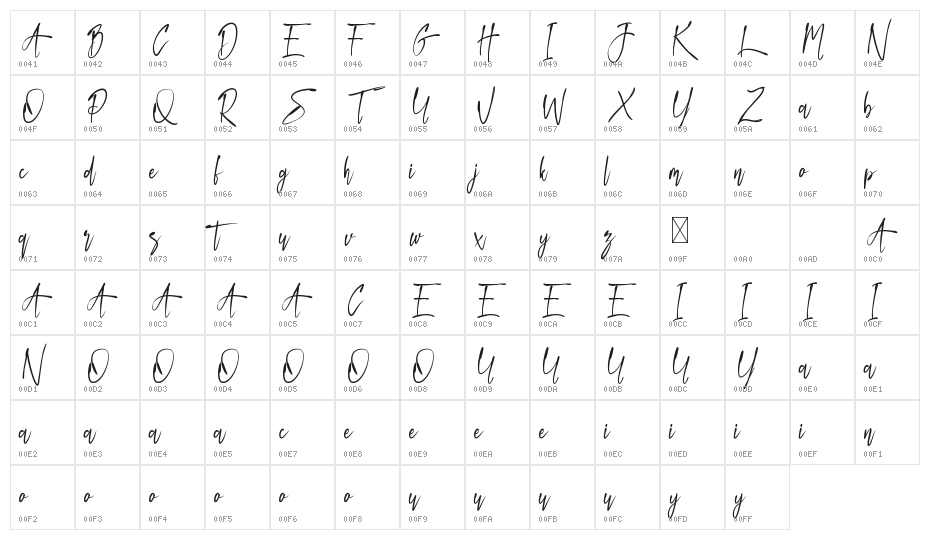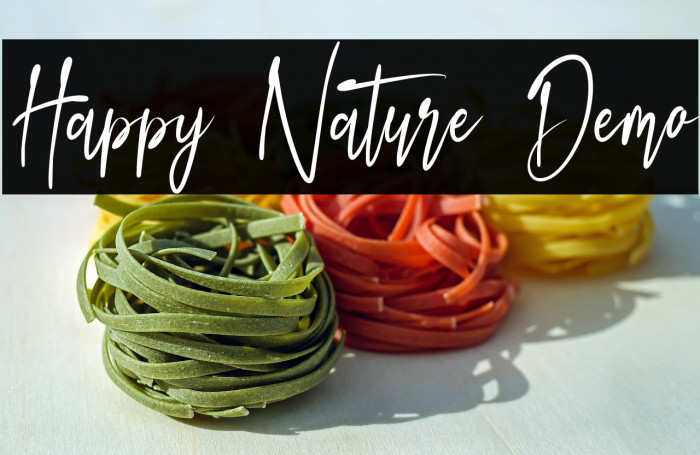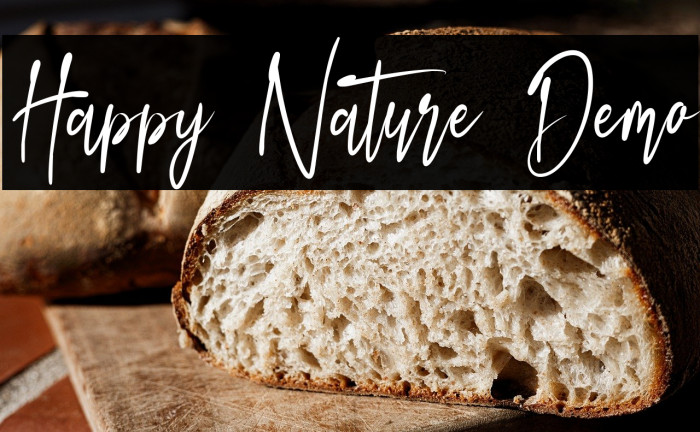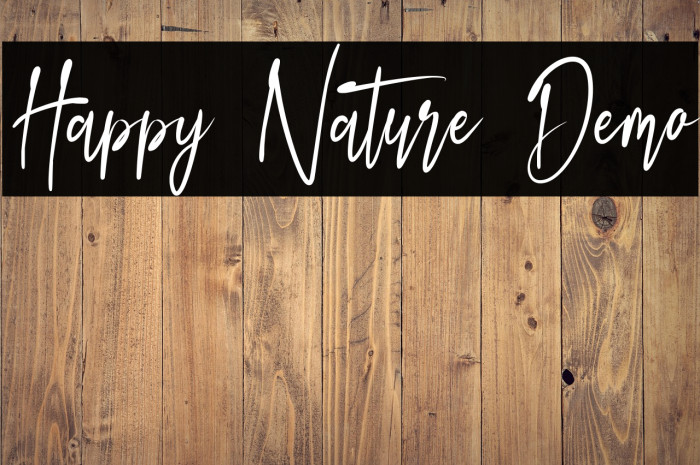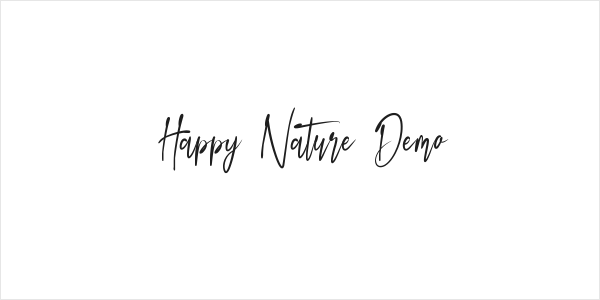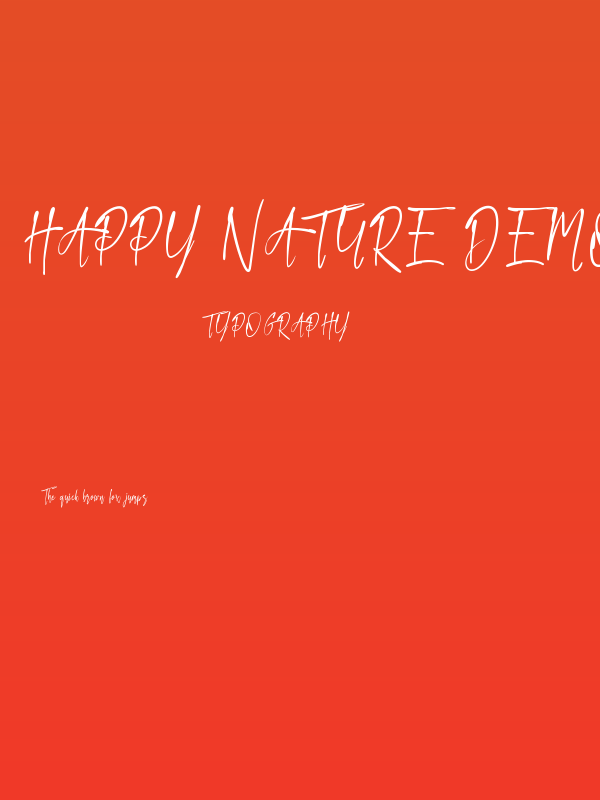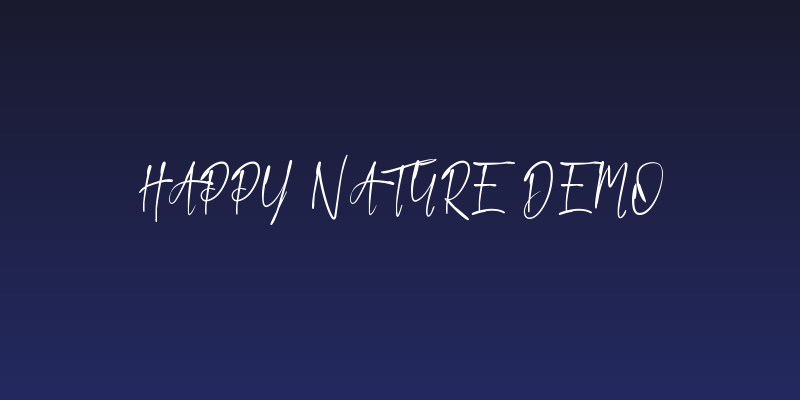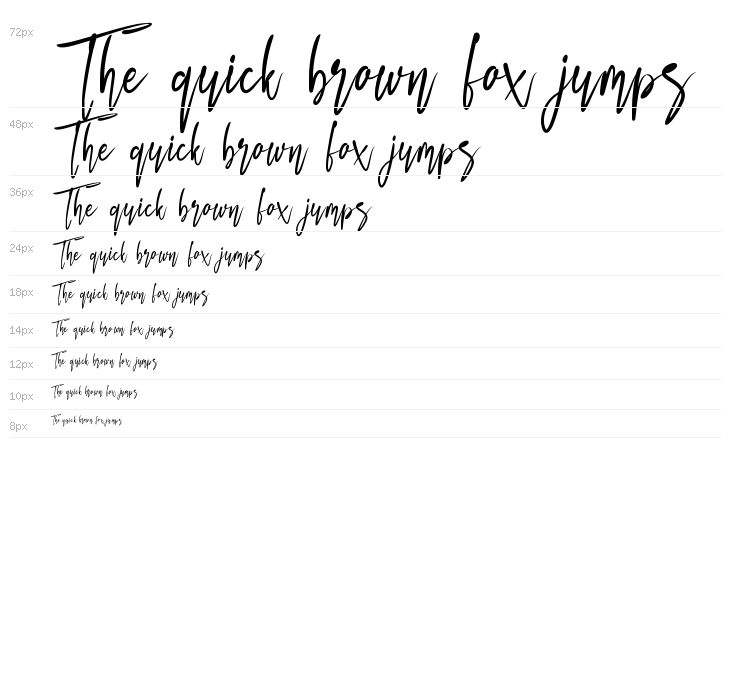
Happy Nature Demo Font
Happy Nature Demo Description
This font features a lively and expressive script style, characterized by its fluid and dynamic strokes. The uppercase letters are elegantly elongated, with a playful yet sophisticated flair. The lowercase letters maintain a consistent flow, enhancing readability while retaining a sense of movement. The numerals and special characters are crafted with the same attention to detail, ensuring a cohesive look across all text. This font's design is reminiscent of handwritten calligraphy, offering a personal touch that is both modern and timeless. Its unique character makes it suitable for a variety of creative applications.